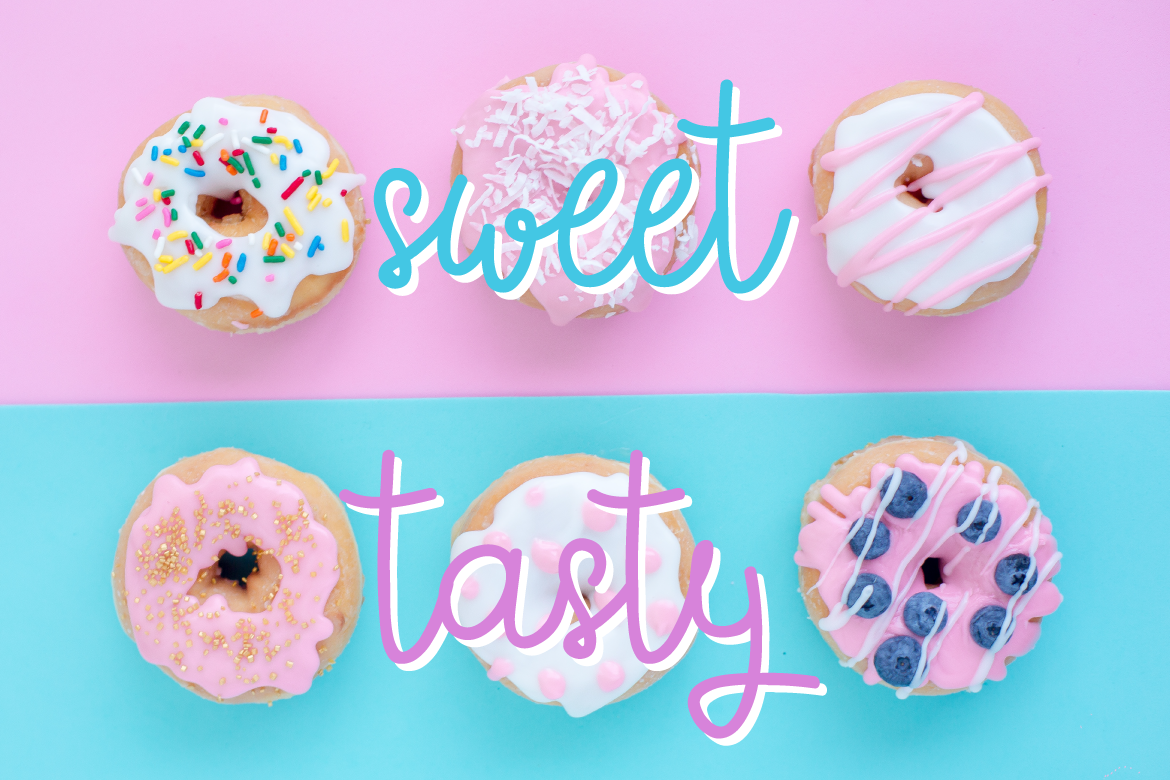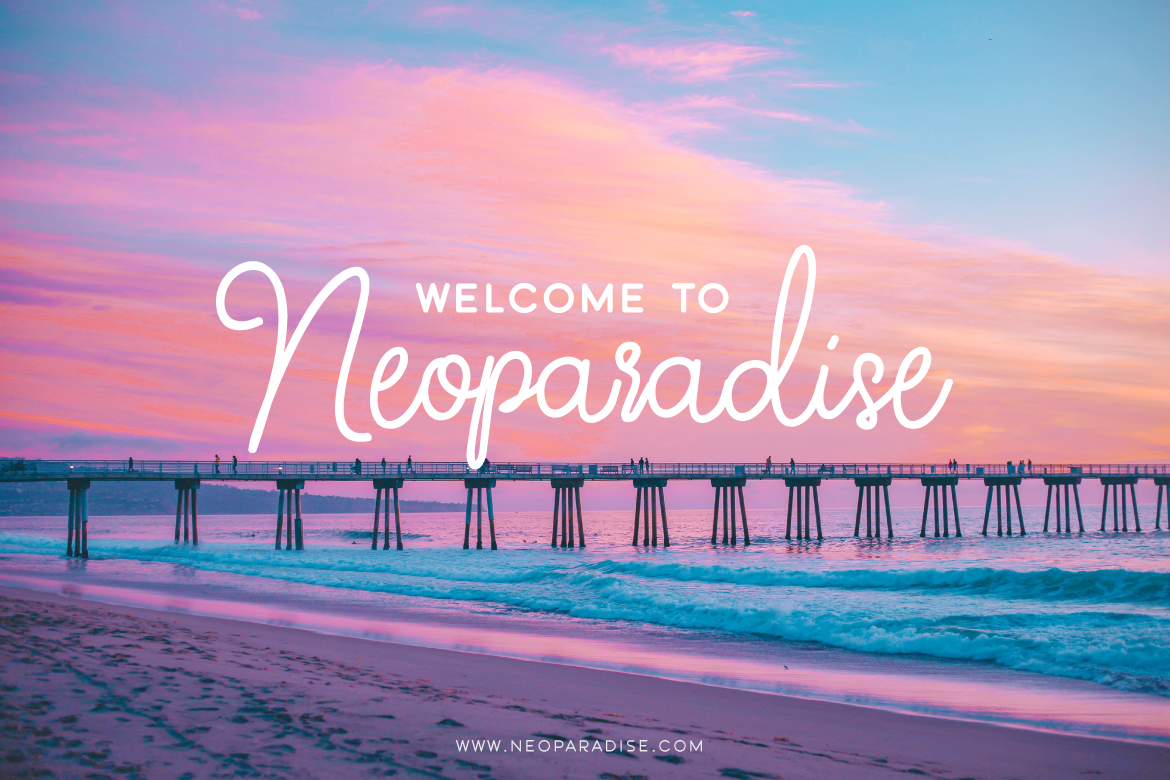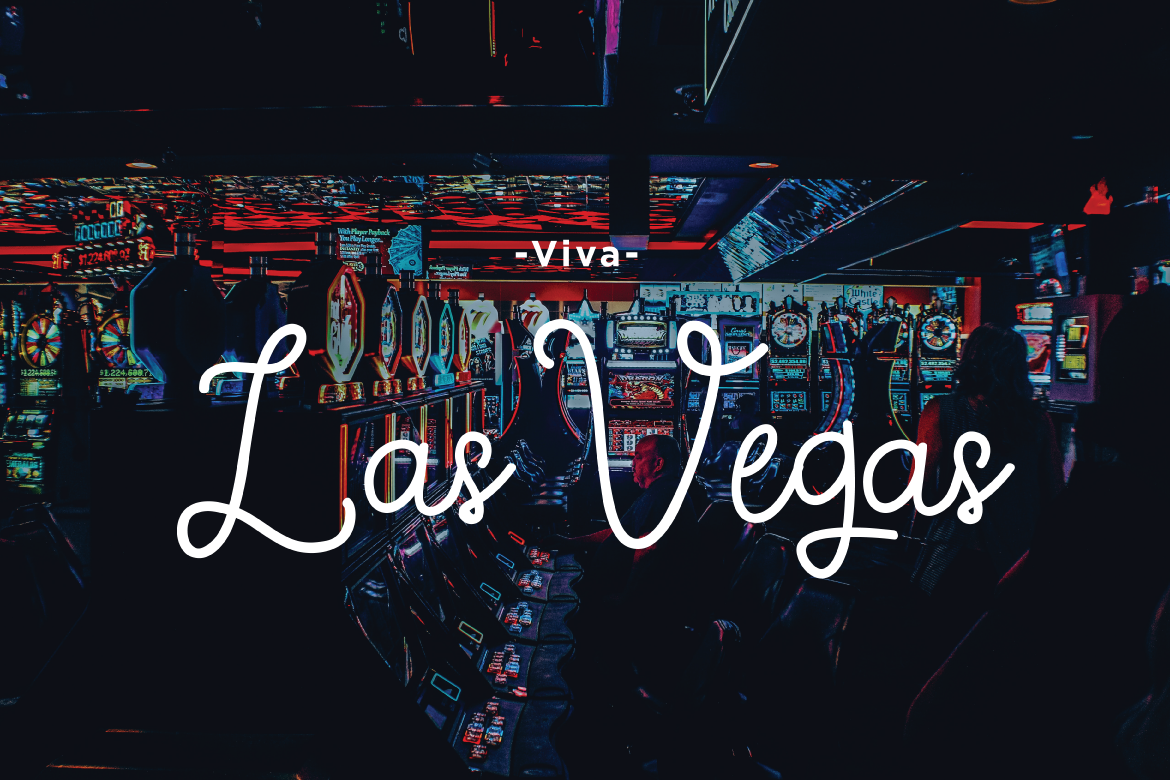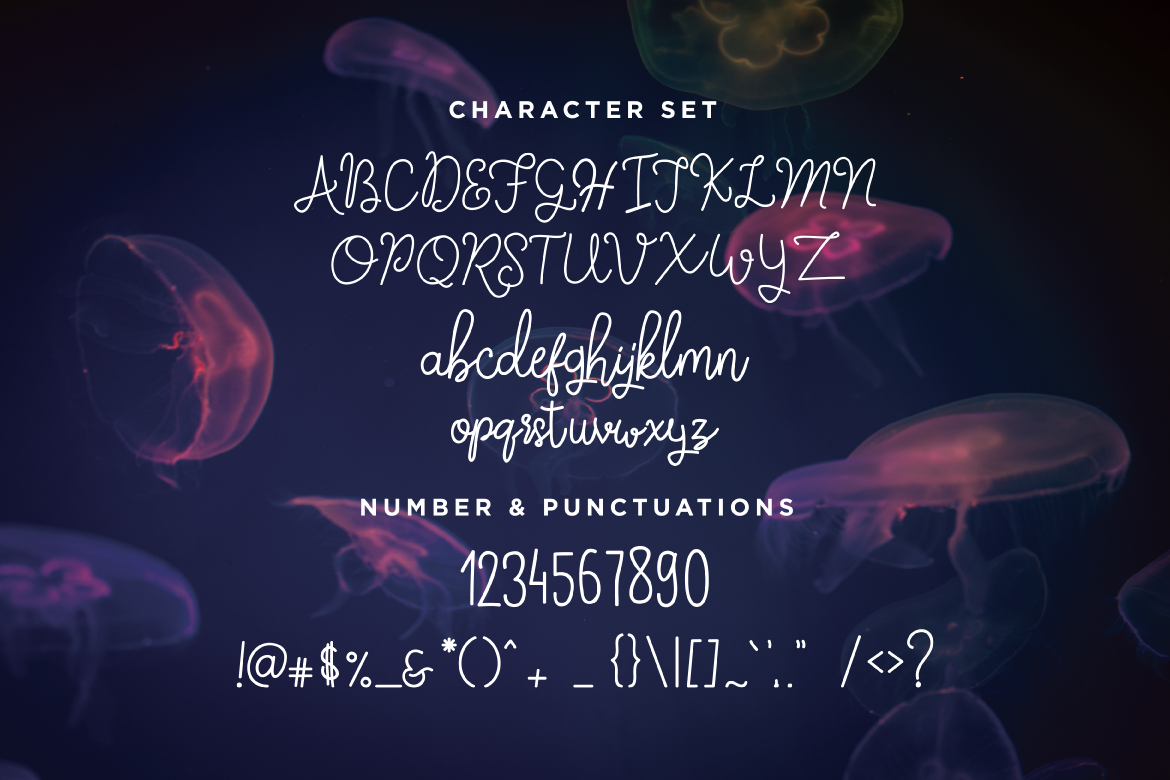
Fantica Font
About Fantica Font
Fantica is a fun and fancy monoline font. This script is casual and clean, one that is on trend and impactful in a number of different design scapes.